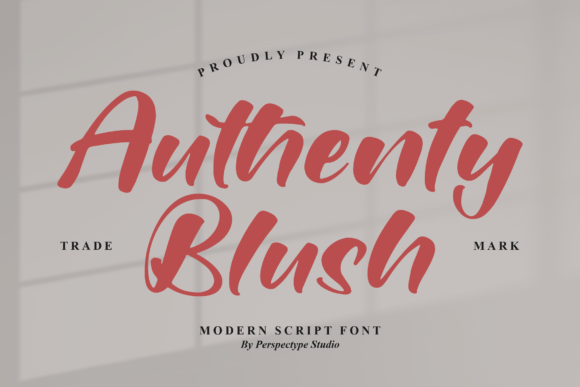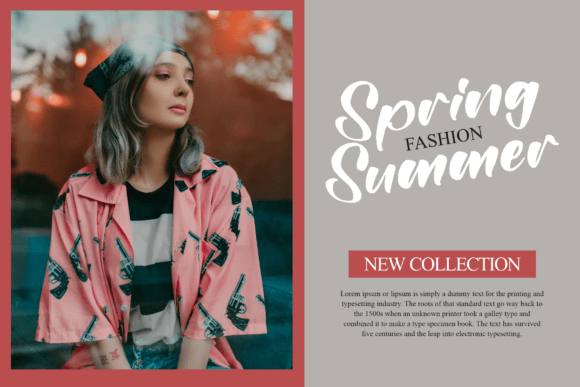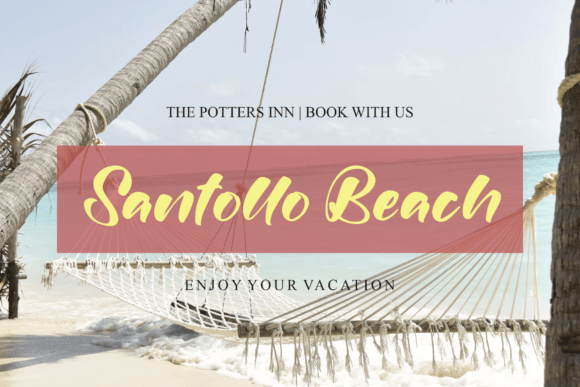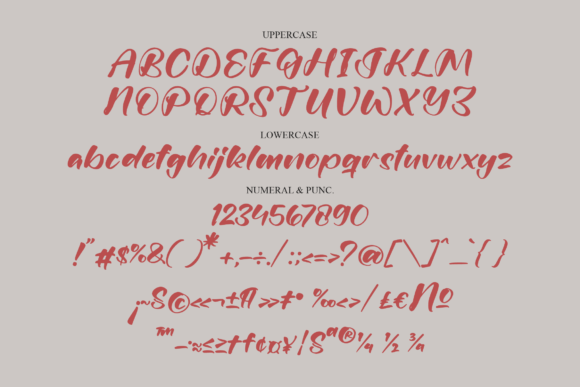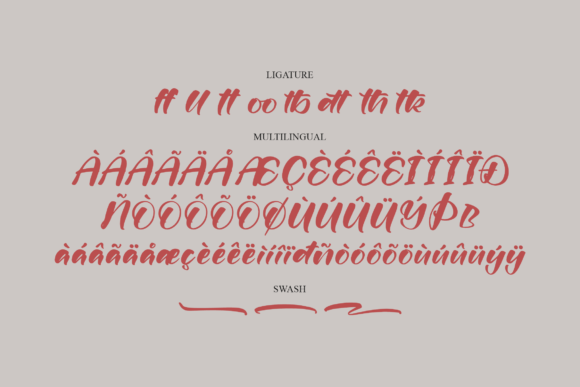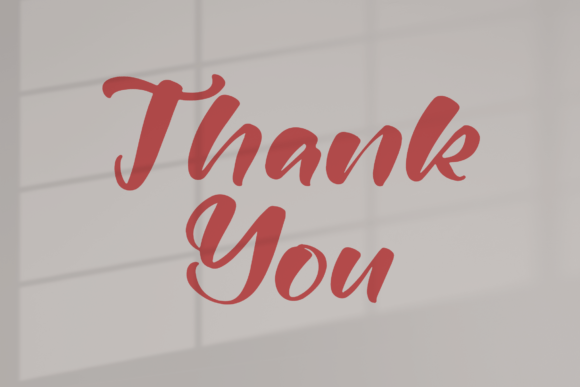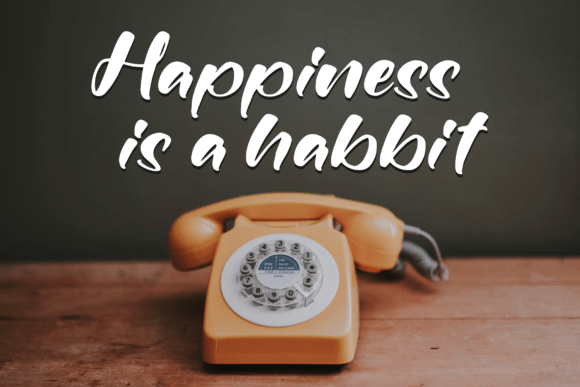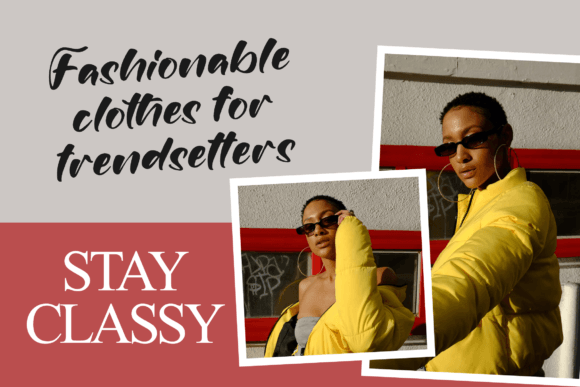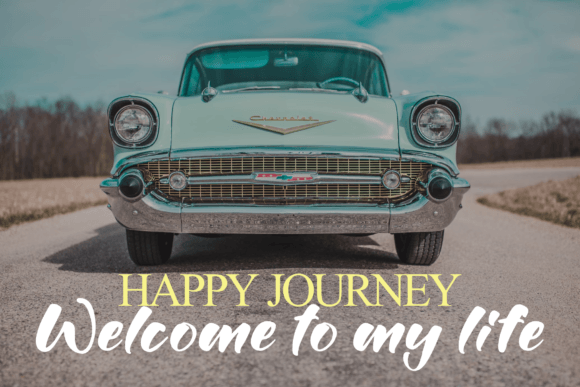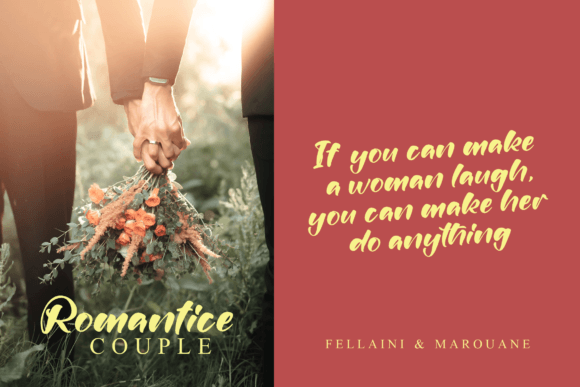
Authenty Blush Font
About Authenty Blush Font
“Authenty Blush” is not just a font; it’s a beautiful script font that combines modernity and uniqueness with a natural writing style. The shapes of the letters are crafted to exude a contemporary and distinctive feel, while the overall writing style remains inherently natural.
This font offers a versatile tool for your creative endeavors. With “Authenty Blush,” you can effortlessly create stunning typographic designs across various platforms. Whether you’re working on branding, web design, editorial projects, prints, crafts, or quotes, this font provides the flexibility to bring your vision to life. Its modern and unique shape adds a touch of sophistication, making it suitable for a wide range of design applications.
One of the standout features of “Authenty Blush” is its suitability for logotypes. The elegant and modern letterforms make it an ideal choice for creating memorable and stylish logos. Additionally, it works exceptionally well for wedding invitations, adding a romantic and chic touch to these special occasions.
The font’s versatility extends to other applications like romantic cards, labels, packaging, and even personalizing the spelling of names. Its aesthetic appeal contributes to the creation of visually appealing and aesthetically pleasing designs across various projects.
“Authenty Blush” serves as a creative asset that elevates your designs with its natural flow and contemporary style. As you add this font to your toolkit, watch how it effortlessly transforms your ideas into visually stunning and captivating creations. Whether you’re a designer working on professional projects or an individual looking to enhance personal designs, “Authenty Blush” stands ready to bring your creative visions to life!